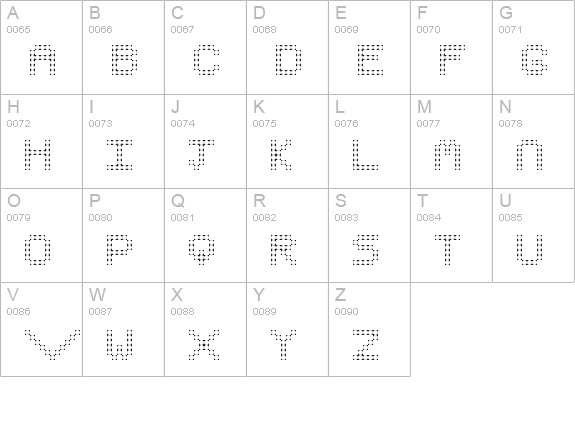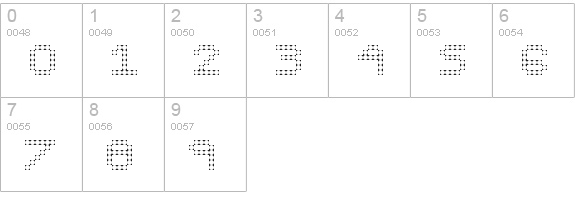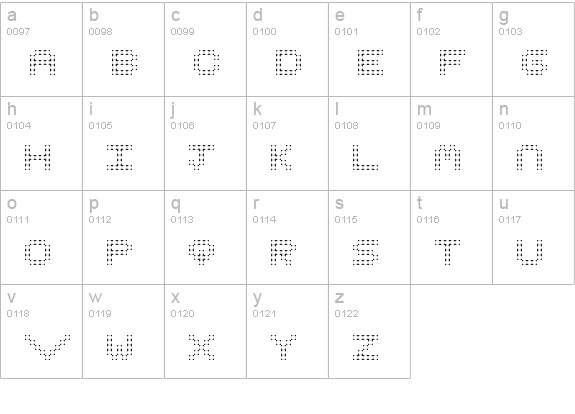
Pixel III Regular is the standard, neutral variant in the Pixel typeface family \xE2\x80\x94 well suited to general body text, paragraphs, and standard typographic work.
Introducing Pixel III Regular, a font that captures the essence of simplicity and brings a touch of nostalgia to your designs. With its clean and crisp lines, this font is perfect for creating a modern and minimalistic look. Whether you're designing a website, creating a logo, or crafting a unique piece of digital art, Pixel III Regular is sure to add a sleek and stylish touch to your work. But what sets Pixel III Regular apart from other fonts is that it is not only visually appealing, but also freely available to download. Yes, you read that right - this font can be yours without costing you a dime. At FontsMarket.com, you can easily access and download Pixel III Regular, allowing you to enhance your designs without any additional expense. So why wait? Take advantage of the opportunity to elevate your design game with Pixel III Regular. Embrace its clean and modern aesthetic, and let your creativity soar. Download this amazing font for free at FontsMarket.com and start creating stunning visuals that will captivate your audience. Don't miss out on the chance to add Pixel III Regular to your font collection today!